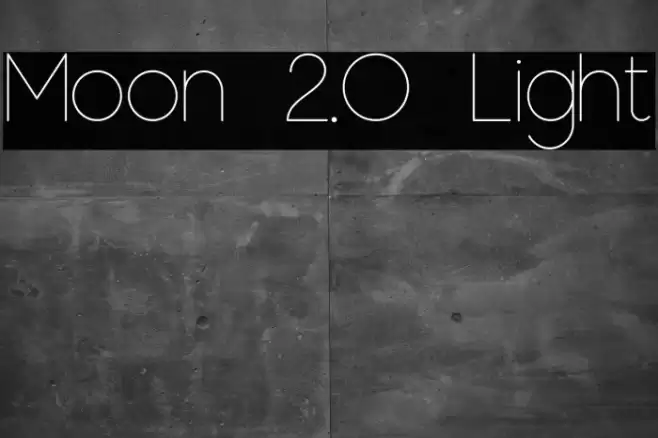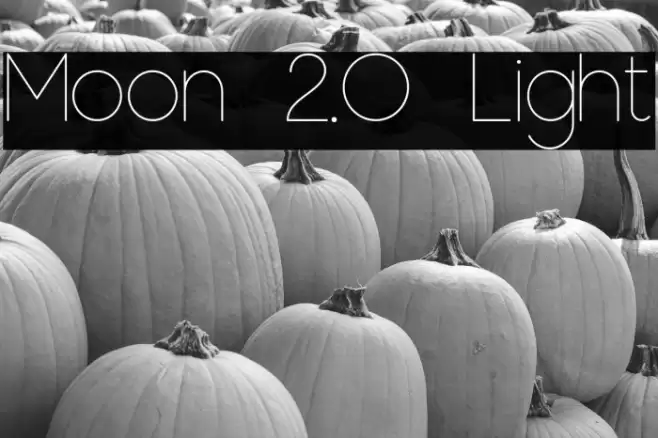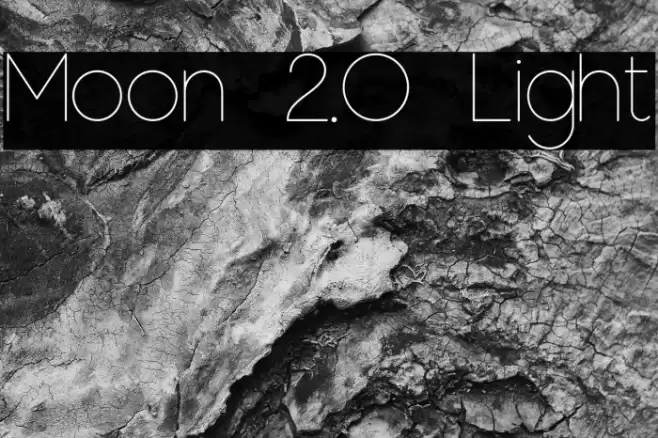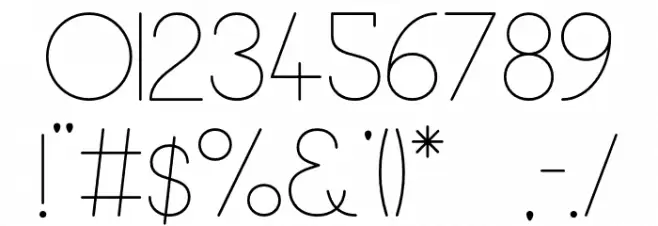
Moon 2.0 Light Font
Moon 2.0 Light Description
This font features a clean, geometric design with a modern and minimalist aesthetic. The characters are constructed with uniform line weights, creating a harmonious and balanced appearance. The circular forms and straight lines give it a futuristic and sleek look, making it ideal for contemporary design projects. The uppercase and lowercase letters maintain a consistent style, while the numerals and special characters complement the overall design. Its simplicity and elegance make it versatile for various applications.
A modern, geometric font with a minimalist and sleek design from Uncategorized fonts.
- Proposed Projects: Ideal for branding, digital interfaces, modern posters, and minimalist design projects.
- Use Case: Headlines, Logos, Digital interfaces